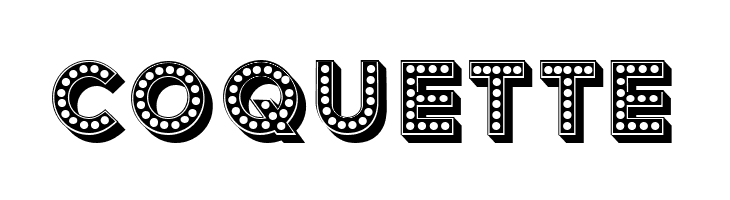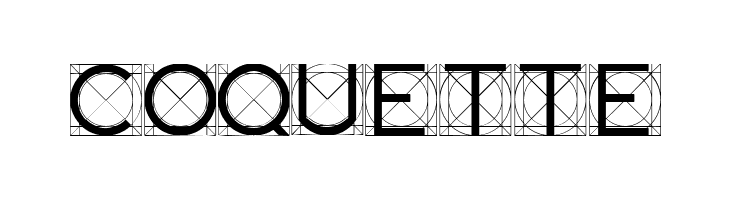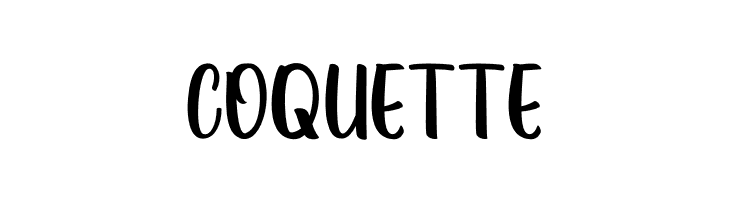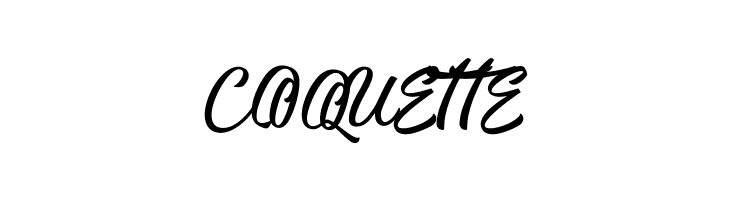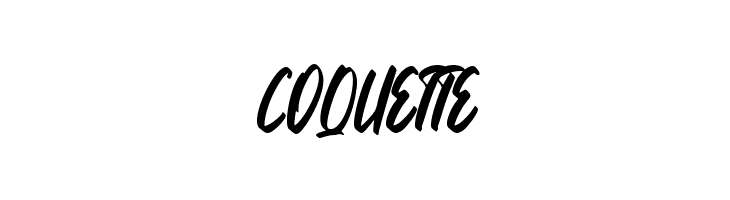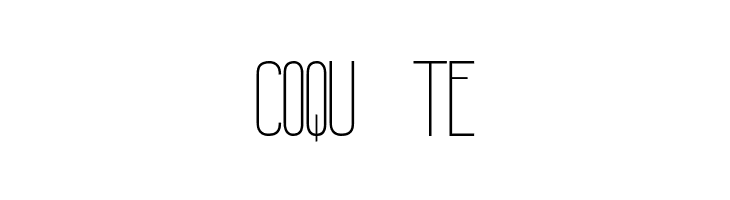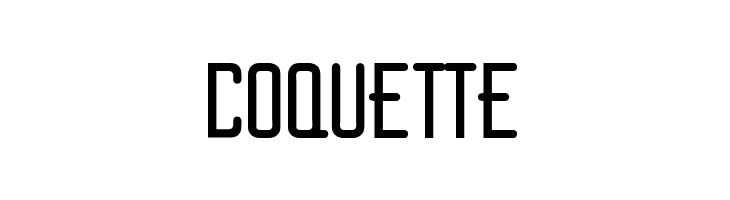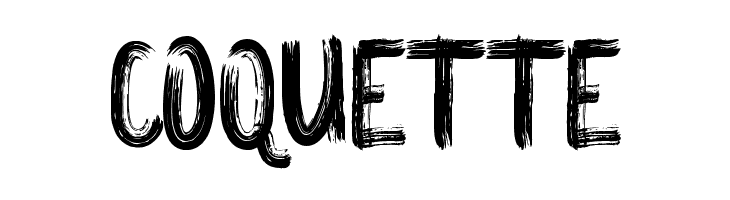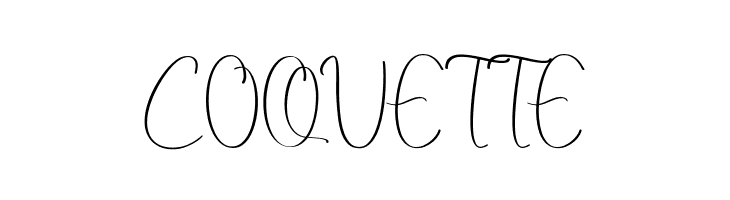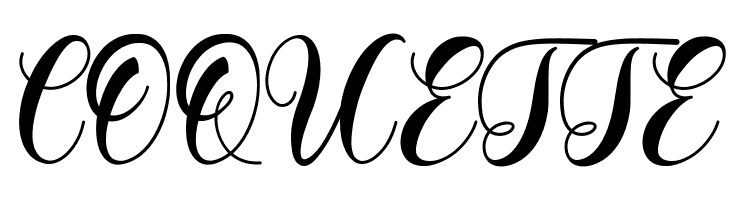
A tall, narrow, and modern font with clean lines and a uniform stroke width.
A playful, handwritten script font with medium contrast and a lively style.
An elegant, flowing script font with graceful loops and smooth cursive strokes.
A graceful, cursive script font with elegant, flowing lines.
A bold, playful script font with flowing, hand-drawn letterforms.
A bold, ornate Blackletter font with sharp serifs and high contrast, ideal for historical or decorative projects.
A bold, gothic Blackletter font with intricate detailing and sharp, angular lines.
A bold, modern font with a geometric and industrial style.
A bold, elegant script font with flowing curves and a modern calligraphic style.
A bold, italic font with angular lines and a modern, dynamic style.
A bold, brush-style font with dynamic and expressive strokes.
An edgy, barbed wire-inspired decorative font with sharp, angular lines.
A geometric, modern font with clean lines and a condensed appearance.
An elegant script font with flowing, interconnected letters and high contrast strokes.
An elegant script font with fluid, cursive strokes and refined flourishes.
A grunge, hand-drawn font with dynamic, uneven strokes and a distressed appearance.
A modern, cursive font with a fluid and elegant style.
A modern, handwritten font with smooth curves and a lively appearance.
A geometric, grid-based font with a modern and technical aesthetic.
A geometric, grid-like font with intricate, modern design elements.
Bold, playful font with rounded shapes.
A classic serif font with elegant curves and strong presence.
A bold, brushstroke-style font with dynamic and energetic characters.
A bold, brushstroke font with dynamic and expressive characters.
An elegant, flowing script font with a handwritten style.
A bold, geometric font with angular lines and a modern aesthetic.
A bold, geometric font with a modern and impactful design.
A playful and elegant script font with flowing, cursive letters.
A playful, ghost-themed decorative font with unique character designs.
A bold, brushstroke font with an energetic and artistic style.
An elegant, flowing script font with decorative flourishes and high contrast.
An elegant script font with flowing cursive and intricate swashes.
A bold, decorative font with a marquee light effect, perfect for vintage-themed designs.
A hand-drawn, textured font with a whimsical and artistic style.